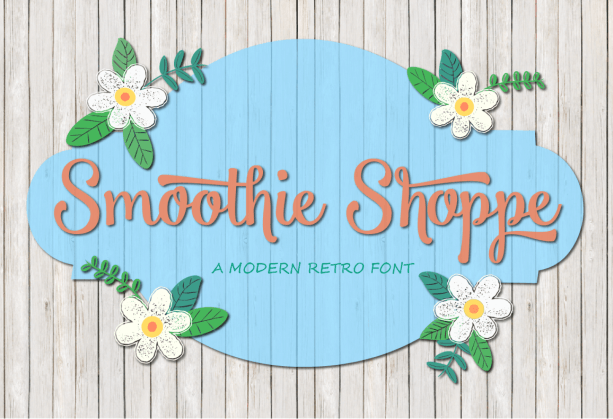
Smoothie Shoppe
Smoothie Shopppe is a bold, yet sweet, modern version of our old favorite retro display fonts. Fun, yet clean brush style script letters. Many additional character combinations with ligatures and swashes to fancy any project. An awesome bonus of over…